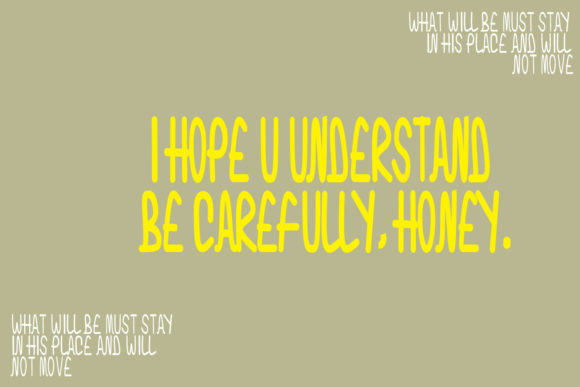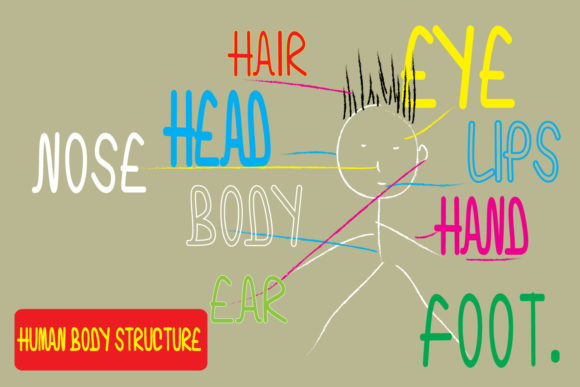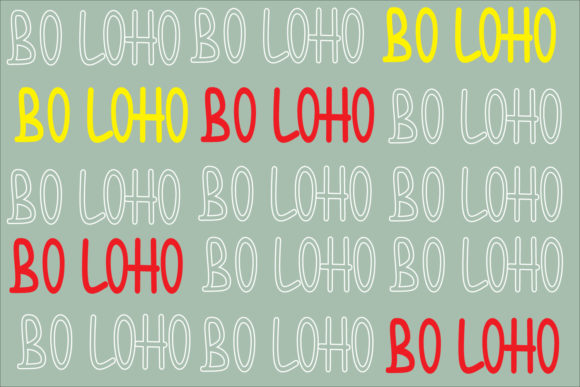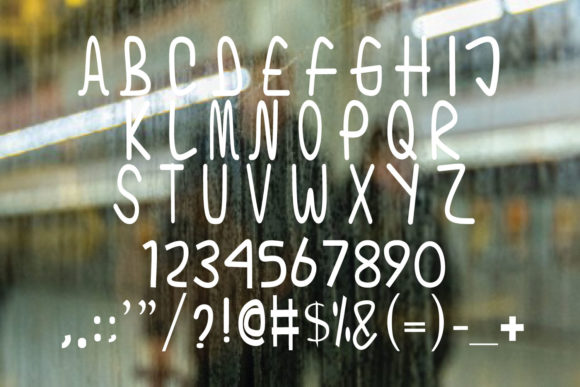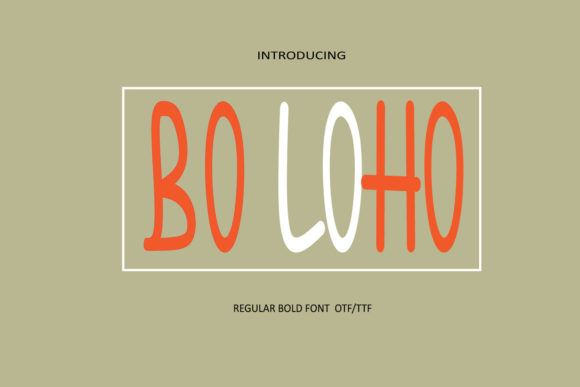
Discover the Delightful Bo Loho Font: Elevate Your Craft Designs with a Personal Touch
In the realm of typography, fonts play a pivotal role in conveying messages, expressing emotions, and adding aesthetic value to designs. For crafters, designers, and DIY enthusiasts, finding the perfect font can make all the difference in transforming a project from ordinary to extraordinary. This is where the Bo Loho Font comes into play—a tall, fun, and handwritten font that is as simple as it is versatile. In this article, we’ll dive deep into the world of Bo Loho, exploring its characteristics, uses, and the creative possibilities it offers for your craft designs.
What is Bo Loho Font?
Bo Loho is a distinctive handwritten font known for its tall letters and fun, lively appearance. Its simplicity is one of its most striking features, making it incredibly easy to use across various design projects. Whether you’re working on crafting beautiful quotes, designing engaging posters, or creating charming greeting cards, Bo Loho brings a personal touch that can make your work stand out.
Key Features of Bo Loho Font
- Tall and Elegant Letters: The font’s tall letters give it a unique and elegant appearance, perfect for headlines, titles, and any design element you want to highlight.
- Fun and Handwritten: Bo Loho’s handwritten nature adds a touch of warmth and personality to your designs, making them more relatable and engaging.
- Simple and Easy to Use: Despite its elegant appearance, Bo Loho is remarkably simple to integrate into your projects, making it accessible for designers of all skill levels.
- Versatility: This font’s adaptability is one of its strongest assets. It can be used in a wide range of craft designs, from digital graphics to handmade crafts.
Creative Uses of Bo Loho Font
The true beauty of Bo Loho lies in its versatility. Here are some creative ways you can incorporate this delightful font into your craft designs:
- DIY Greeting Cards: Add a personal touch to your greeting cards with Bo Loho. Its fun and elegant appearance makes it perfect for occasions ranging from birthdays to weddings.
- Custom Posters: Whether you’re promoting an event, advertising a product, or simply decorating your space, Bo Loho can help you create eye-catching posters that capture attention.
- Handmade Crafts: For crafters who love to add personalized elements to their projects, Bo Loho can be used to create beautiful quotes, labels, or tags that add a handmade charm.
- Digital Graphics: In the digital realm, Bo Loho can be used in social media graphics, blog headers, and website elements to add a touch of personality and warmth.
Tips for Using Bo Loho Effectively
To make the most of Bo Loho, consider the following tips:
- Mix and Match: Don’t be afraid to experiment by pairing Bo Loho with other fonts. Its simplicity makes it a great combination with a wide range of typography styles.
- Play with Colors: The beauty of Bo Loho can be further enhanced by experimenting with different colors. Choose colors that complement your design theme and highlight the font’s elegance.
- Emphasize Key Elements: Use Bo Loho to draw attention to key messages or elements in your design. Its tall and fun appearance makes it naturally eye-catching.
Bo Loho Font is a delightful addition to any designer’s toolkit, offering a unique blend of elegance, fun, and versatility. Its simplicity and ease of use make it accessible for crafters and designers of all levels, while its distinctive appearance provides endless opportunities for creative expression. Whether you’re working on digital projects or handmade crafts, Bo Loho can help you add that special touch that makes your designs truly memorable. So, don’t hesitate to explore the creative possibilities with Bo Loho and watch your craft designs transform with a personal and elegant touch.